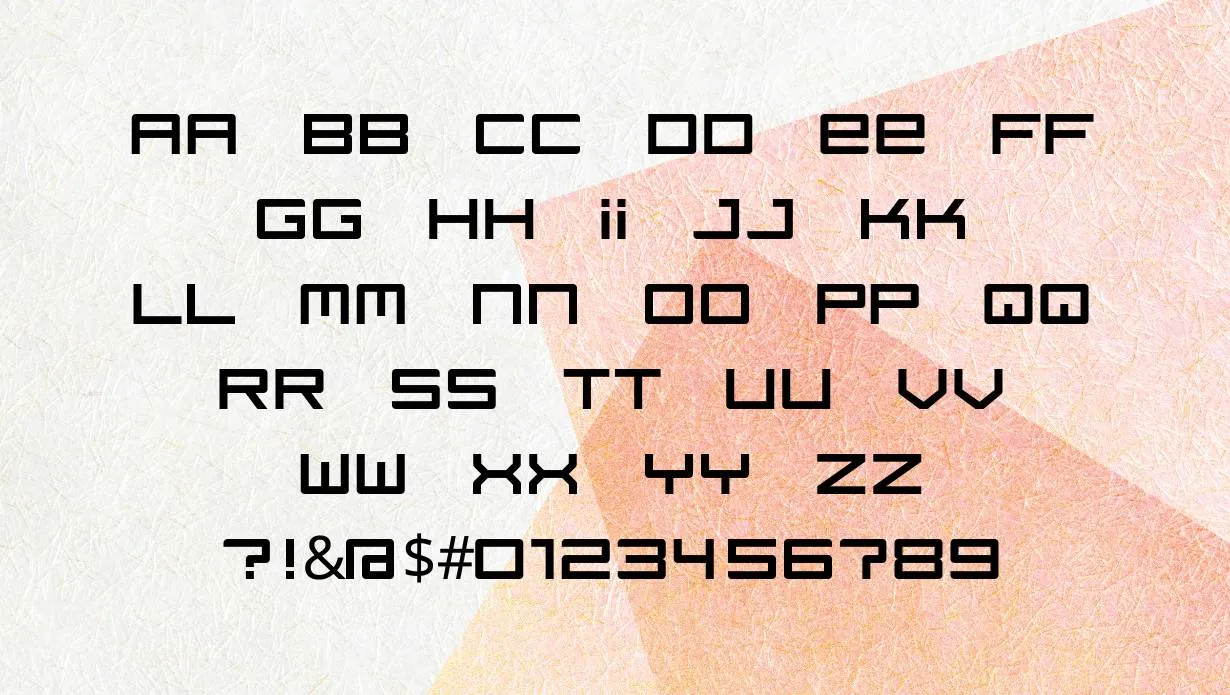
Regata Font offers a clean and modern design with a straightforward and approachable appearance.
It’s suitable for various design applications, from branding to web design, where clarity and simplicity are essential.